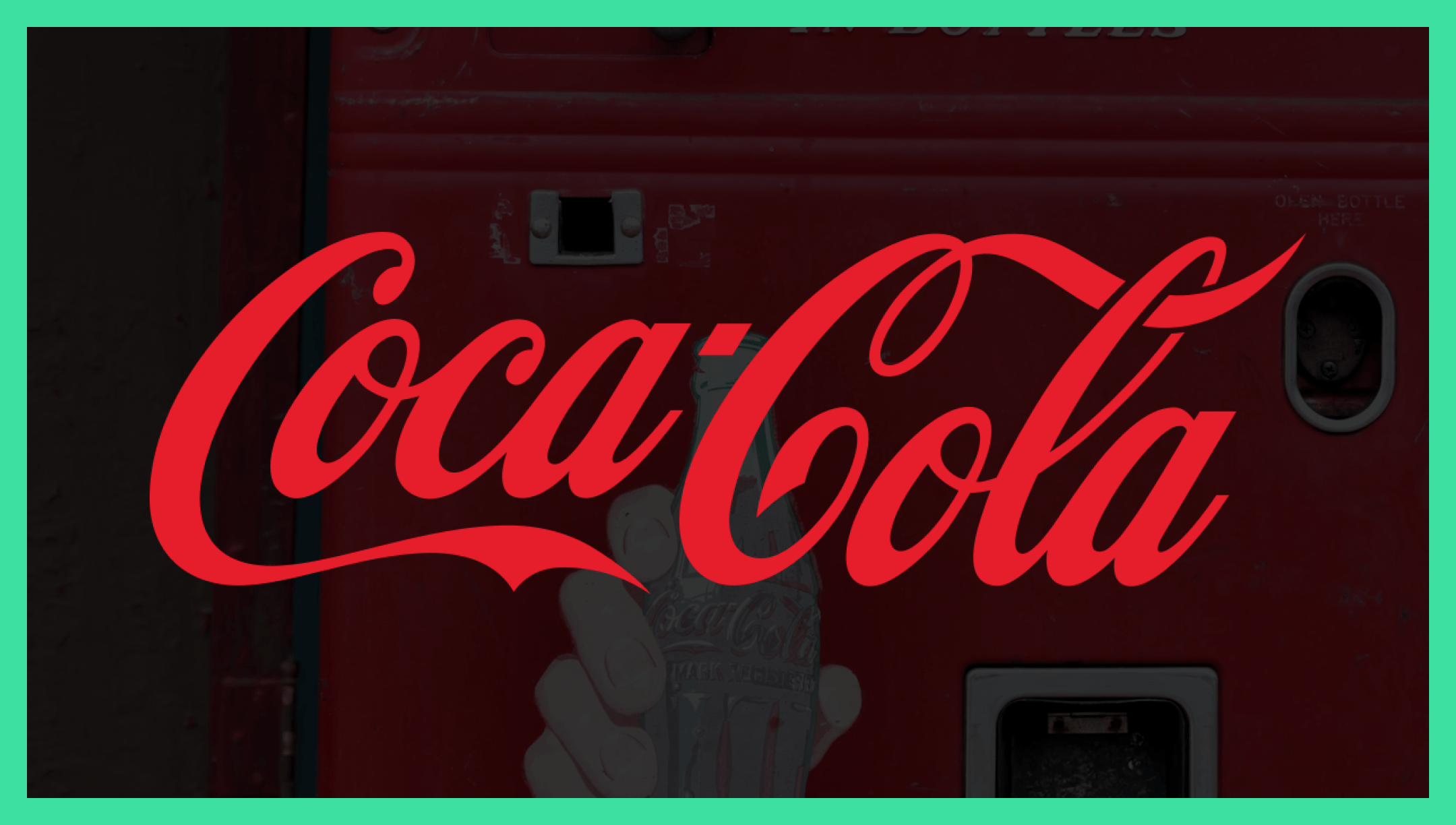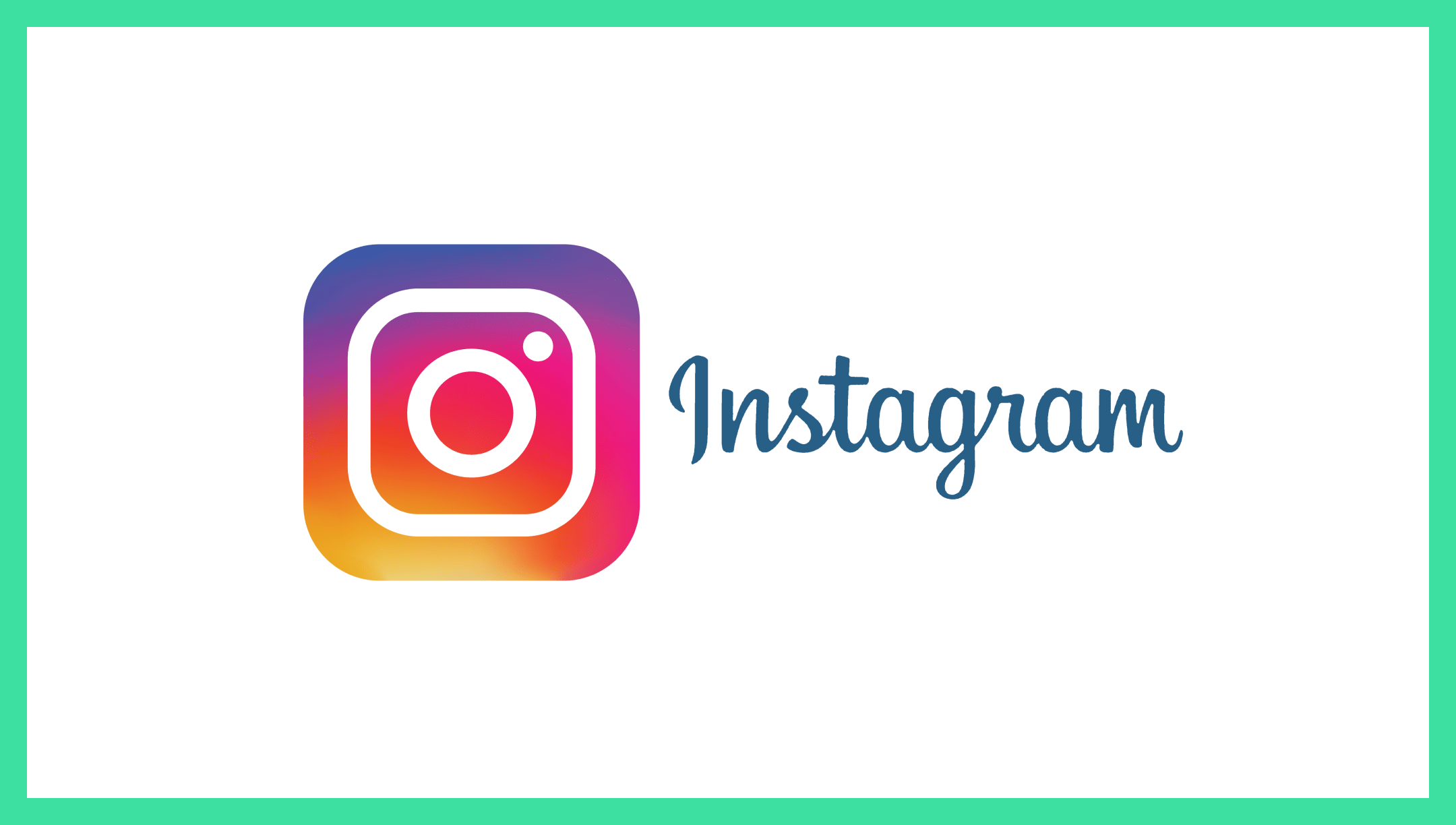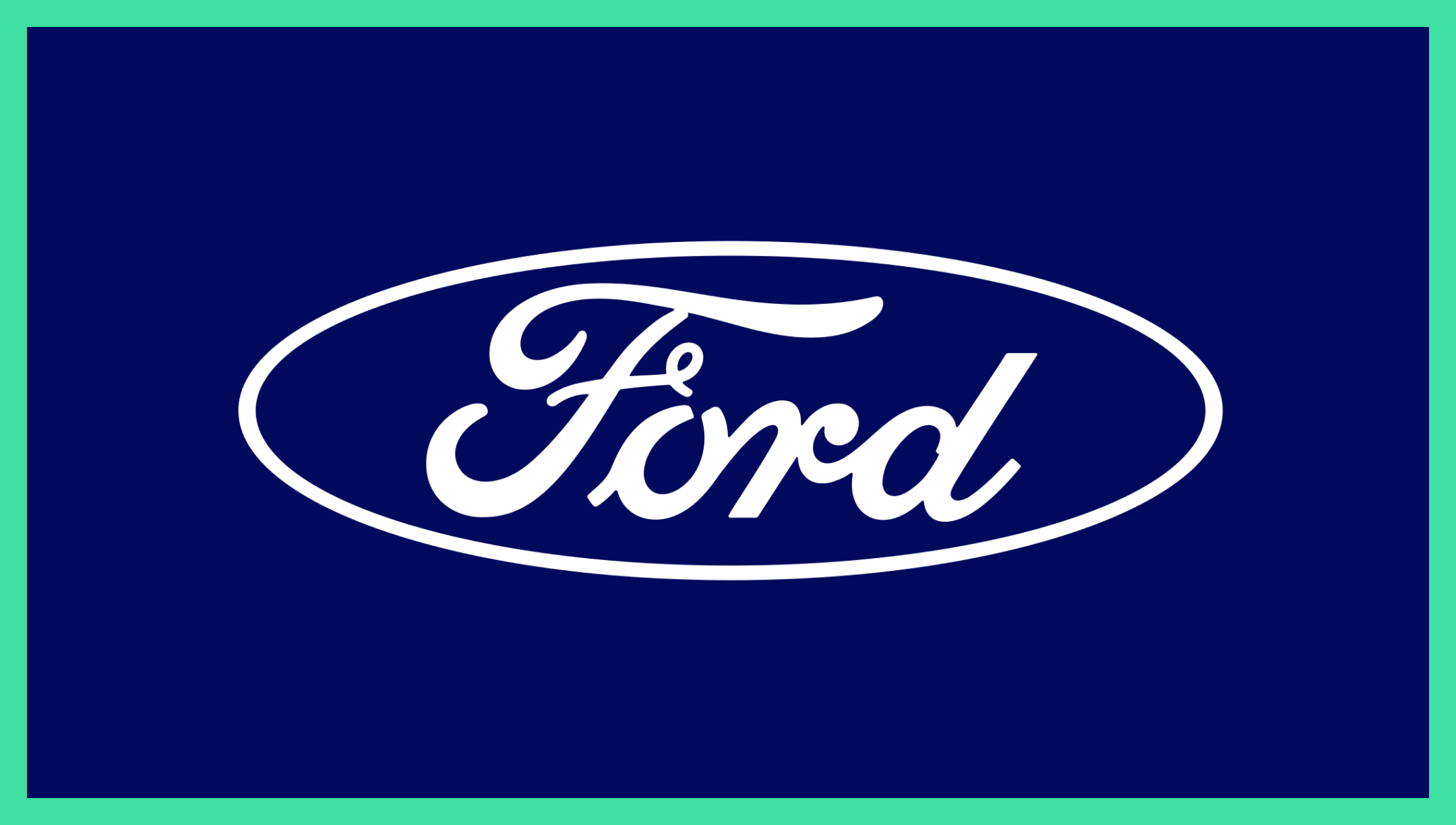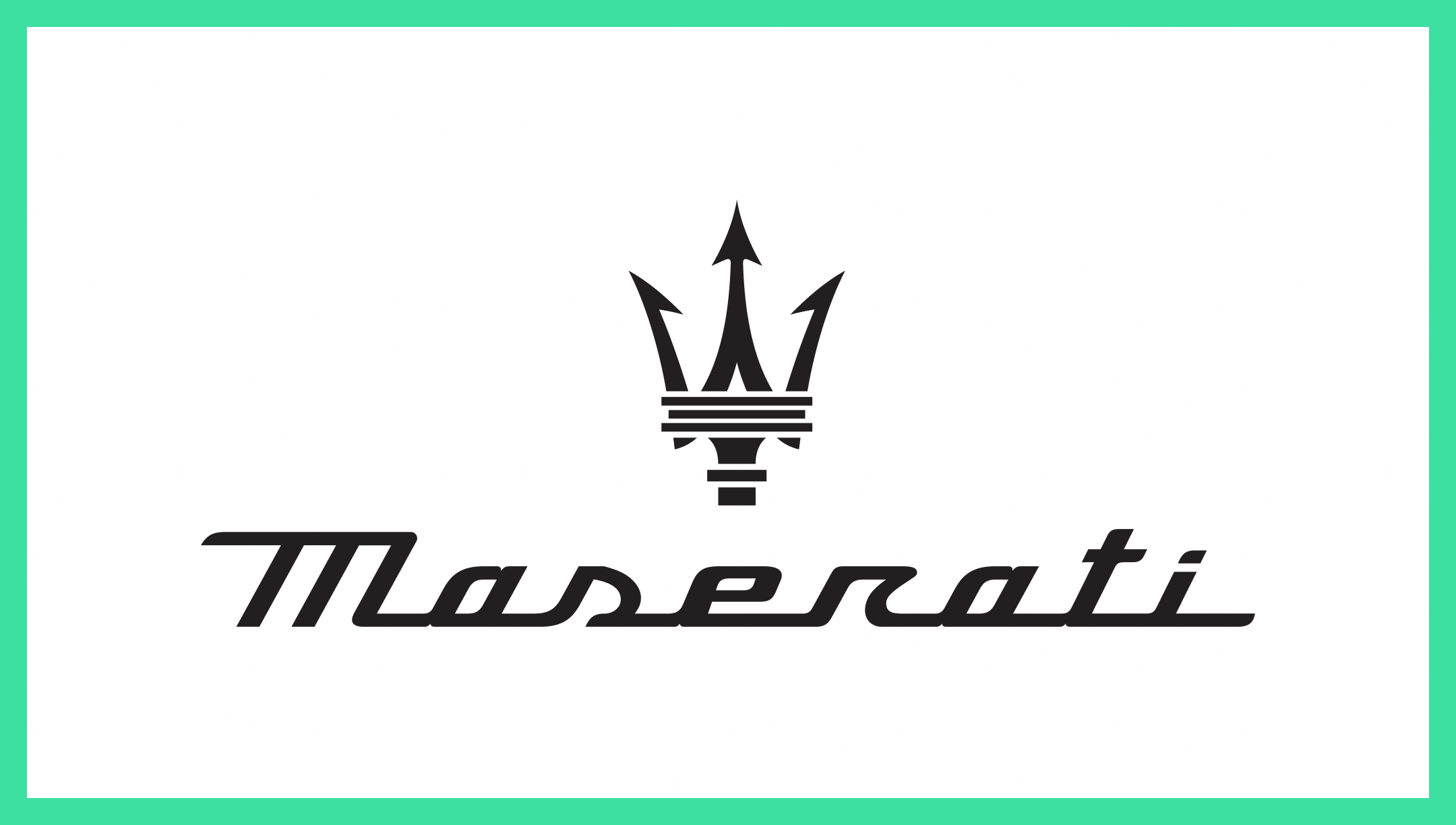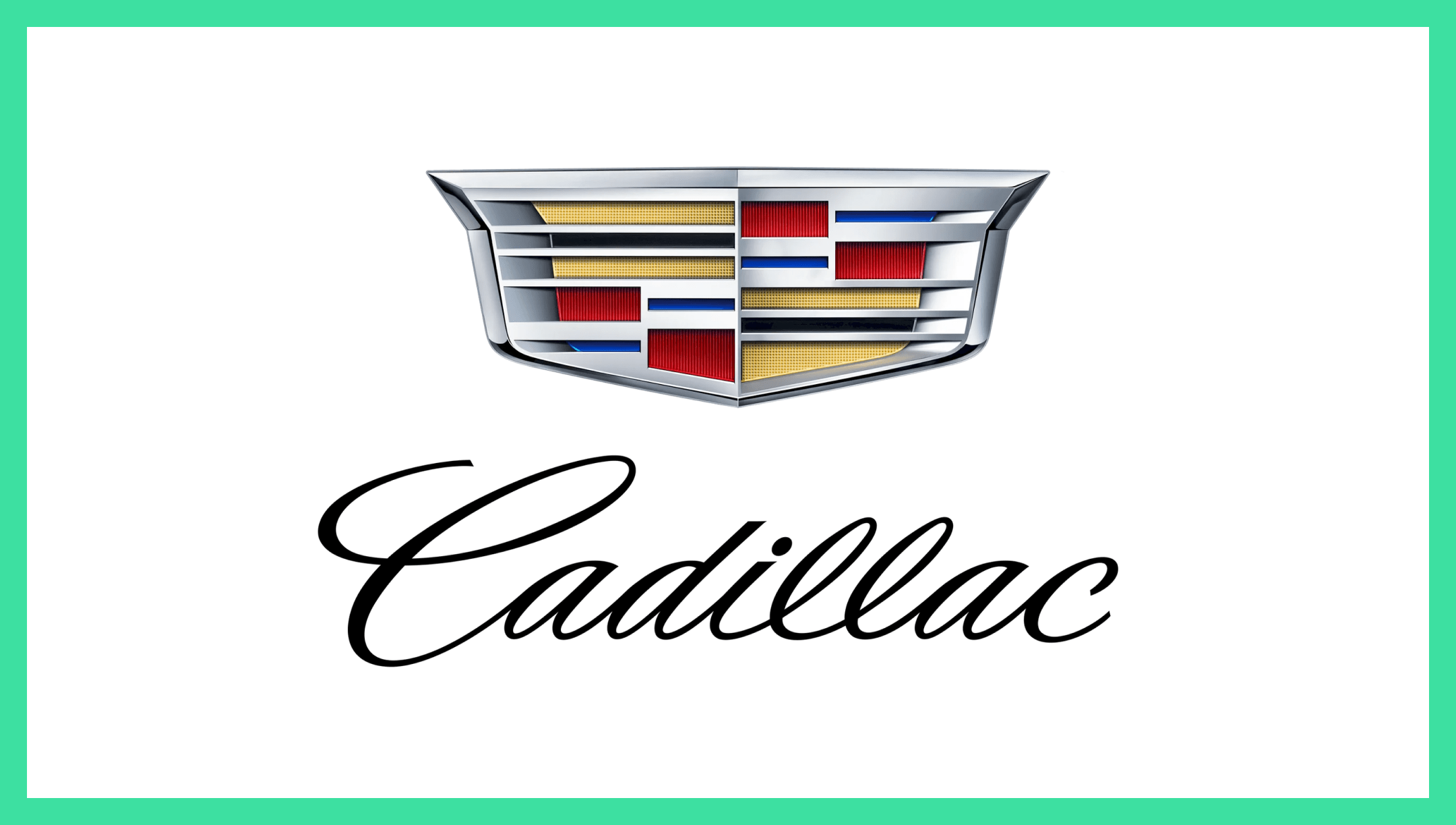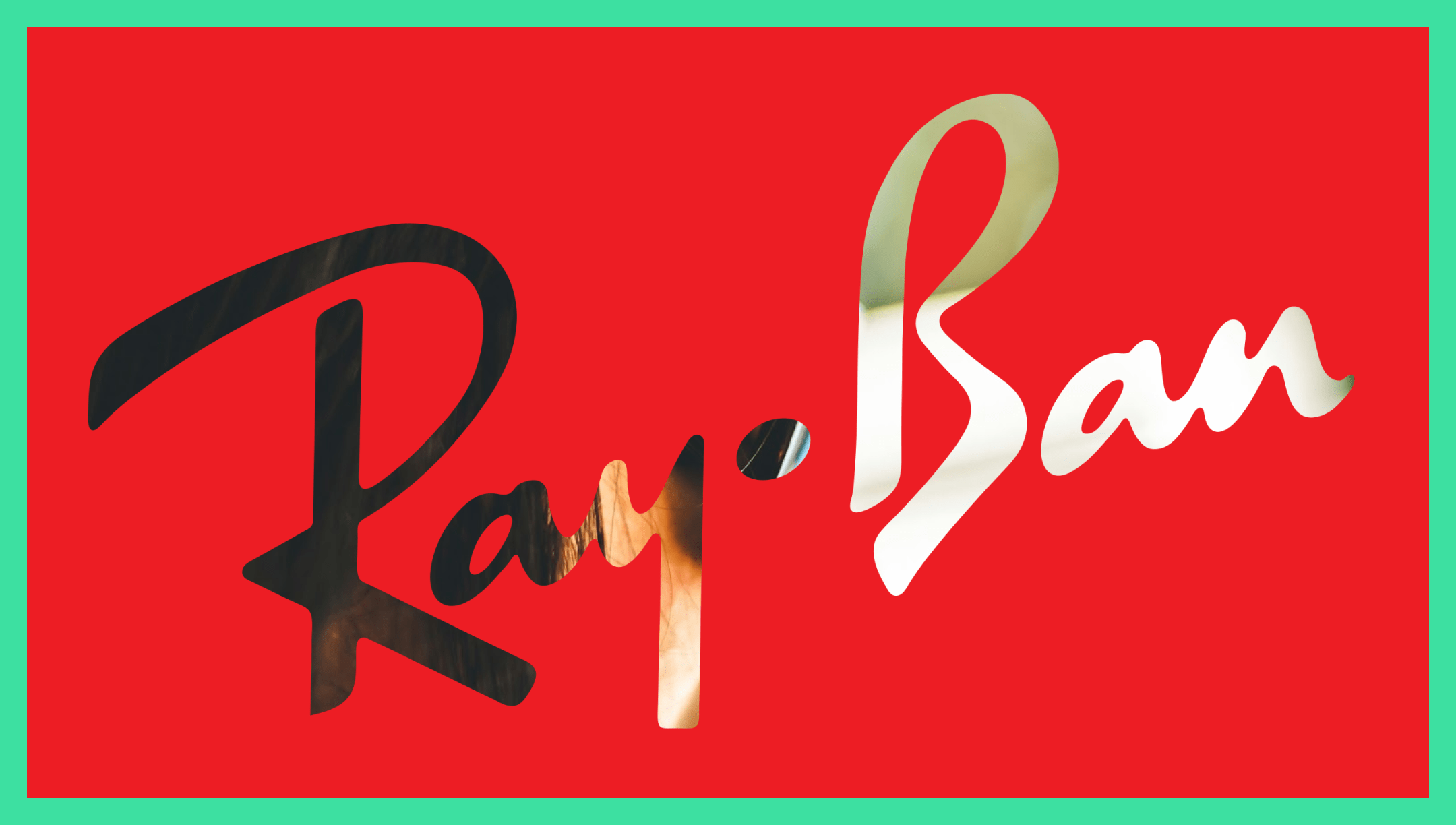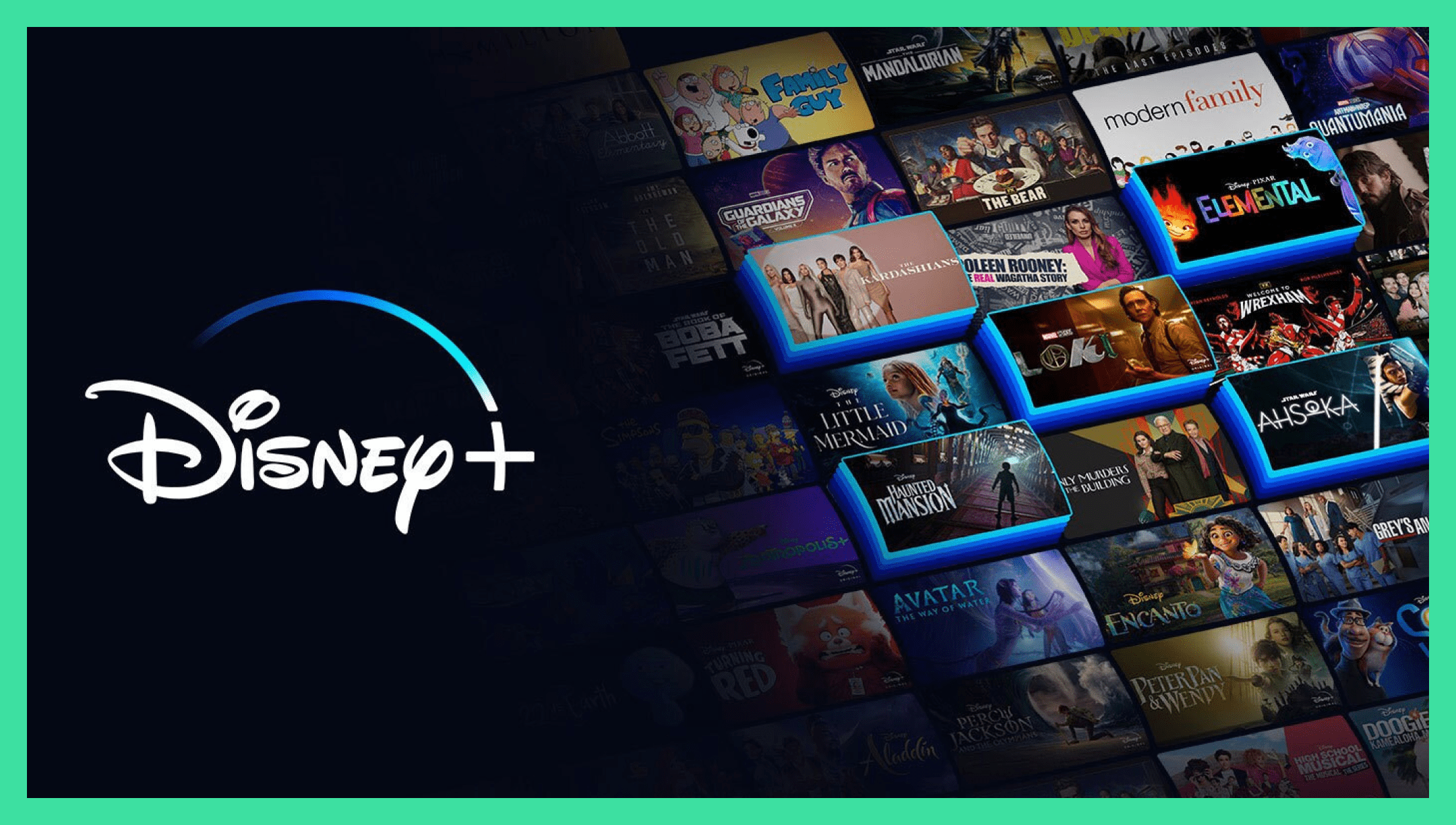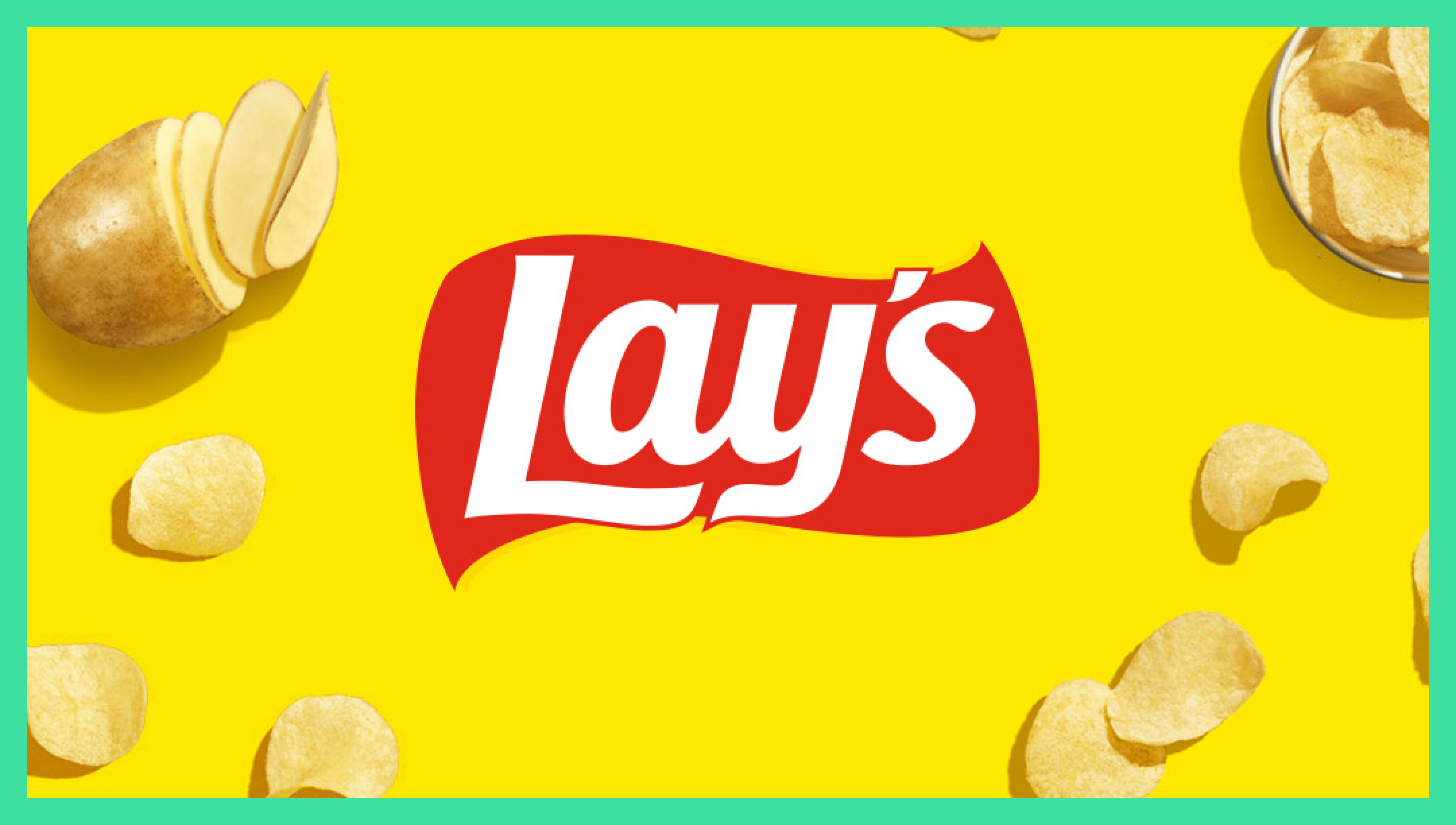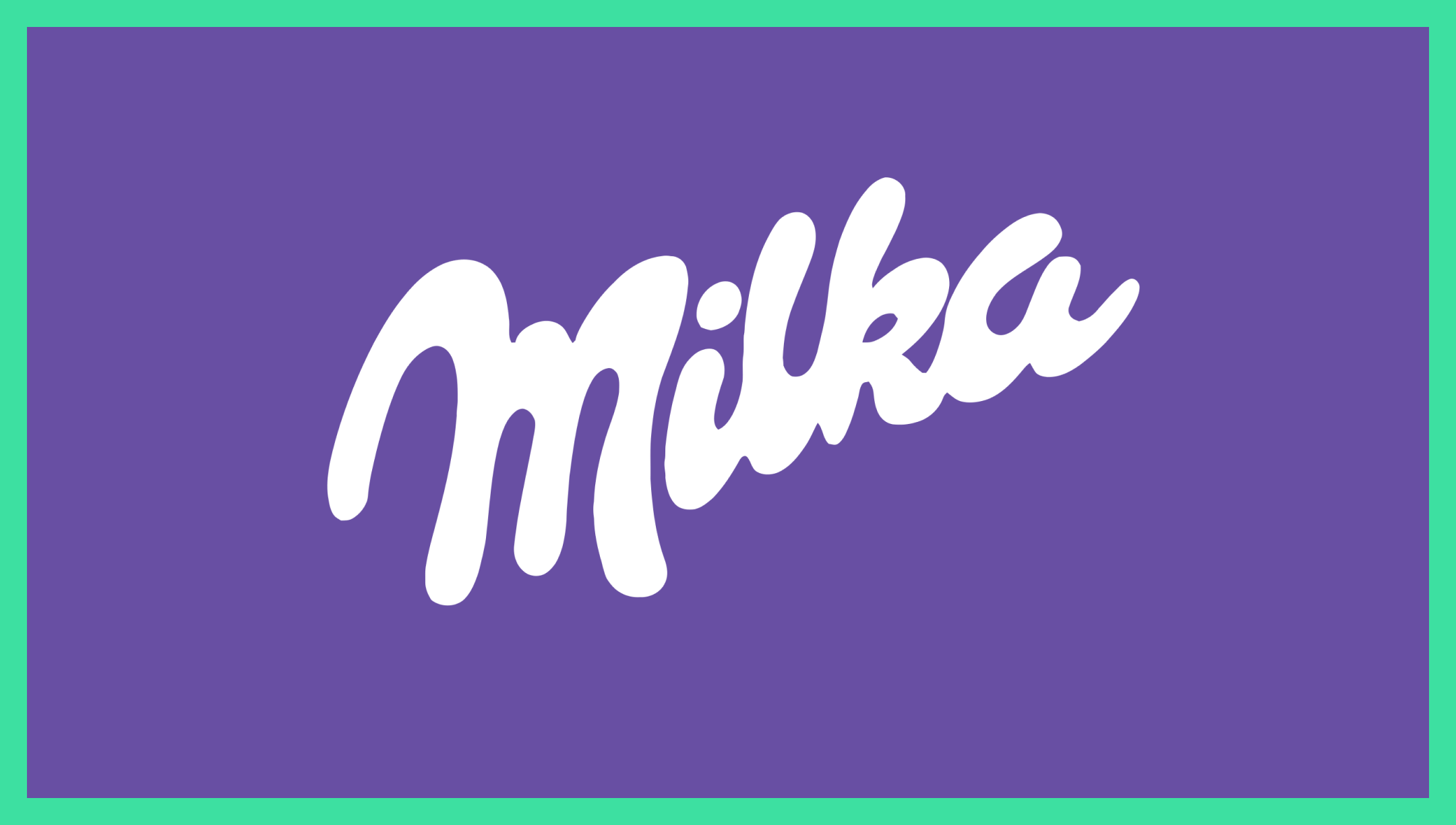
Top 15 Iconic Logos with Handwritten Style Branding
The world of logos is a battlefield for brand recognition. According to a study, 72% of well-designed logos have the potential to become iconic symbols that transcend times, allowing brands to maintain relevance and resonance with consumers across generations.
Companies spend millions crafting visual identities that resonate with consumers and leave a lasting impression. Among these visual elements, handwritten logos occupy a unique space. They evoke a sense of warmth, authenticity, and personality that can be difficult to achieve with traditional typography.
In this article, we'll explore fifteen iconic logos that utilize fonts with handwritten style, delving into the design choices and brand messages they convey.
The power of handwritten fonts in logo design
Handwritten (cursive and script) fonts offer several advantages for logo design:
• Sophistication and Elegance: The inherent grace of cursive script lends a sense of refinement and luxury to a brand. It's perfect for companies aiming to project a high-end image, like jewelry brands (Cartier) or luxury car manufacturers (Maserati).
• Personality and Uniqueness: Cursive fonts can add a touch of individuality to a logo, setting your brand apart from competitors. The playful script of Milka's logo reflects the brand's fun-loving personality, while Ray-Ban's slanted cursive exudes coolness and confidence.
• Memorability: A well-designed cursive logo can be highly memorable due to its unique flourishes and letterforms. Coca-Cola's iconic script is a prime example, instantly recognizable even without the brand name.
Choosing the Right Cursive Font
Not all cursive fonts are created equal. Here are some factors to consider when selecting the perfect cursive font for your logo:
• Brand Personality: Match the font style to your brand's core values. A playful script might suit a toy brand (Barbie), while a more formal cursive would be ideal for a law firm.
• Readability: Ensure the chosen font remains legible, especially at smaller sizes. Complex flourishes might look elegant but can hinder readability on packaging or marketing materials.
15 best cursive fonts for your brand’s logo design
Handwriting fonts, with their flowing lines and elegant flourishes, have a timeless quality that can elevate a brand's image. These fonts evoke a sense of sophistication, creativity, and even a touch of personality. While most of these fonts are custom handwritten designs, you’ll find some typefaces created to mimic the original.
1. Coca-Cola
The coca-cola logo with its cursive font written in red color
Coca-Cola's font used in its logo is arguably the most recognizable trademark on the planet. Its flowing script, with its distinctive curves and flourishes, transcends language and cultural barriers. Developed in 1885 by Frank Robinson, the logo's creator, Coca-Cola's bookkeeper, penned the name in his elegant Spencerian script
This simple choice has become a cornerstone of the brand's identity. The logo's timeless appeal embodies Coca-Cola's rich heritage and global reach, evoking a sense of nostalgia and familiarity in consumers worldwide.
2. Instagram
The instagram logo and the Instagram name with its cursive font on the side written in blue
Instagram's logo utilizes a simple and modern cursive font, with slightly thicker lines and a touch of informality. This modified cursive designed by Mackey Saturday feels friendly and approachable, reflecting the social and sharing nature of the platform.
A gif that shows the former instagram logo font vs the new instagram logo font update
The logo font was updated a couple of years ago to feel more modern and become more distinctive. The former Instagram handwritten logo script was based on the Billabong font, now however the new custom lettering is unique to Instagram, but still maintains the familiarity, a balance that “respects the past” and has “the necessary evolution to become distinctive and proprietary” as declared by Mackey.
3. Ford
The Ford brand logo in a white handwritten cursive font
Like many logos in its time, the Ford logo was a hand-drawn design with cursive script. In 1907 Child Harold Wills designed the logo by using his grandfather’s stencil set.  The logo employs a flowing, custom design. The font's connected letters hint at a sense of continuity and forward motion, subtly referencing the brand's long history of innovation in the automotive industry.
4. Barbie
The Barbie logo font with its distinct pink color